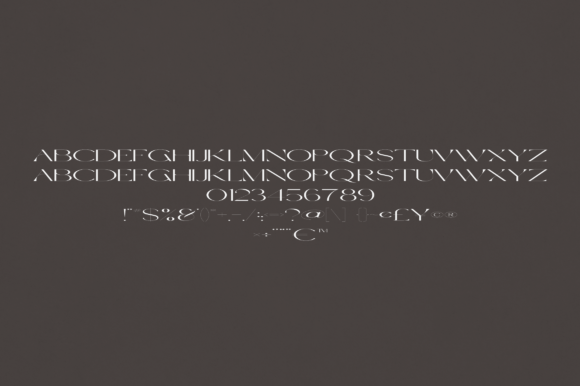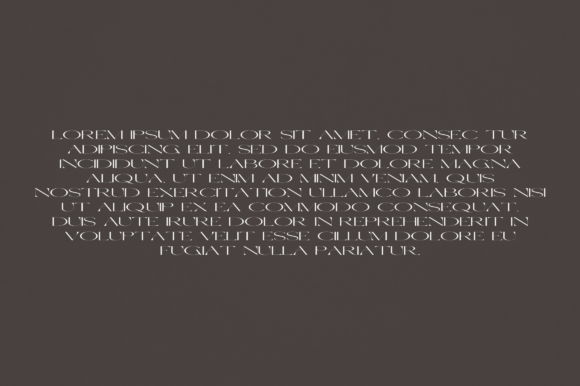
Coriander Font: Elevate Your Typography with Elegance and Versatility
Are you tired of using the same old fonts for your design projects? Look no further than Coriander Font, an elegant and versatile display font that will take your typography to the next level. With its unique charm and sophisticated style, Coriander Font is perfect for designers and crafters looking to add a touch of elegance to their work.
What Makes Coriander Font Special?
Coriander Font is a display font that boasts an enchanting and refined aesthetic, making it ideal for a wide range of design applications. Whether you’re working on a logo, branding project, headline, or plain text, Coriander Font is sure to make your typography truly unique. Its elegant and versatile design ensures that it can be used in various contexts, from home-ware designs and product packaging to magazine headers and stylish text overlays.
Coriander Font is a dream come true for designers and crafters who want to add a touch of sophistication to their work. With its beautiful and intricate design, Coriander Font is perfect for:
- Branding projects: Create a lasting impression with Coriander Font’s elegant and refined design, perfect for logos, business cards, and letterheads.
- Home-ware designs: Add a touch of elegance to your home-ware designs, from kitchen utensils to decorative plates, with Coriander Font’s sophisticated style.
- Product packaging: Make your product stand out on store shelves with Coriander Font’s unique and eye-catching design.
- Magazine headers: Create stunning magazine headers that grab attention and set the tone for your publication.
- Stylish text overlays: Add a touch of elegance to your background images with Coriander Font’s beautiful and versatile design.
Key Features of Coriander Font
Coriander Font boasts a range of key features that make it an ideal choice for designers and crafters:
- Elegant and refined design: Coriander Font’s sophisticated style is perfect for adding a touch of elegance to your design projects.
- Versatile: Coriander Font can be used in a wide range of design applications, from logos and branding to headlines and plain text.
- Unique: Coriander Font’s intricate design ensures that your typography stands out from the crowd.
Tips for Using Coriander Font
To get the most out of Coriander Font, here are some tips to keep in mind:
- Experiment with different sizes: Coriander Font looks great in a range of sizes, from large display fonts to smaller body text.
- Play with colors: Coriander Font’s elegant design looks great in a range of colors, from bold and bright to subtle and muted.
- Mix and match: Coriander Font pairs well with a range of other fonts, so don’t be afraid to experiment with different combinations.
Coriander Font is an elegant and versatile display font that is perfect for designers and crafters looking to add a touch of sophistication to their work. With its unique charm and refined aesthetic, Coriander Font is ideal for a wide range of design applications, from branding and home-ware designs to product packaging and magazine headers. So why settle for ordinary typography when you can elevate your design projects with Coriander Font?